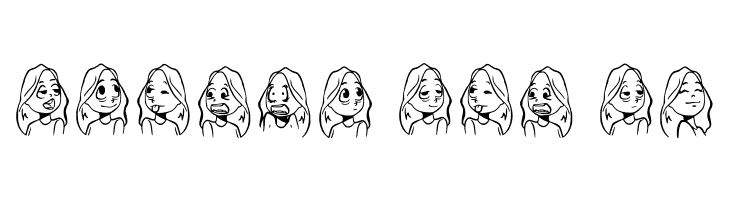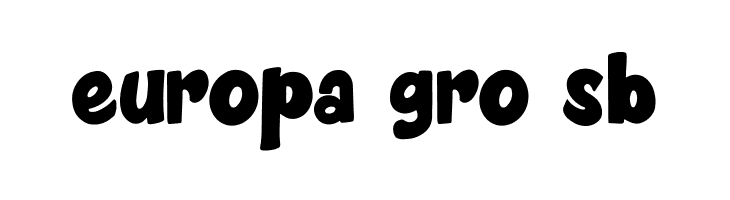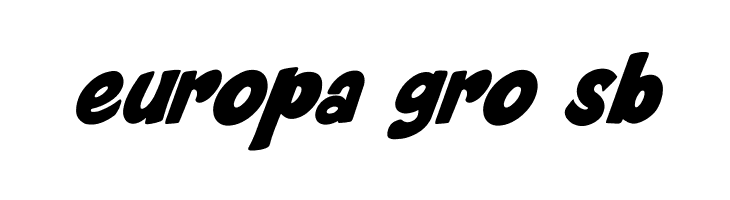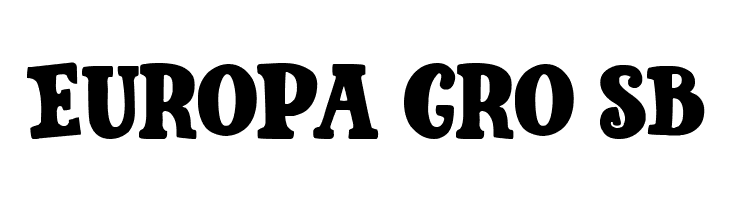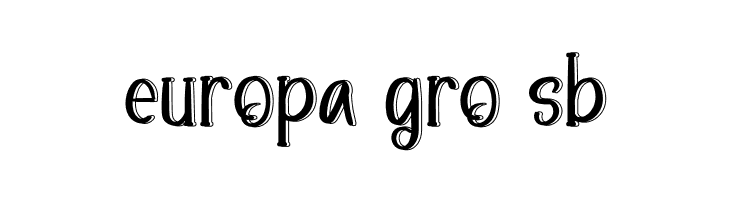
( Fonts by Omar Mogollón )
A playful, hand-drawn font with rounded, whimsical characters.
A bold, playful 3D font with a cartoonish style and shadow effect.
A bold, playful outline font with a cartoonish style.
A bold, playful, and slightly italicized font with a cartoonish style.
A bold, playful, and cartoonish font with thick, rounded letters.
A bold, playful font with thick outlines and a cartoonish style.
A bold, playful 3D font with rounded edges and a cartoonish style.
( Fonts by MatNowRock )
A playful, hand-drawn font with a bold, cartoonish style.
( Fonts by Jen Jones )
A playful, hand-drawn font with a whimsical and cartoonish style.
( Fonts by MrtheNoronha )
A bold, playful font with thick outlines and a cartoonish style.
( Fonts by Sharkshock )
A bold, playful font with irregular shapes and a whimsical, cartoonish style.
A bold, playful font with thick, rounded characters and a whimsical style.
( Fonts by Darrell Flood )
A bold, playful font with a hand-drawn marker style.
( Fonts by Geronimo )
A bold, playful font with rounded, outlined characters and a cartoonish style.
A bold, cartoonish font with a playful, three-dimensional style.
( Fonts by Darrell Flood )
A bold, playful font with chunky outlines and a whimsical, cartoonish style.
( Fonts by Darrell Flood )
A playful, bold outline font with a cartoonish and dynamic style.
( Fonts by Gustavo Lucero )
A playful, bold font with a cartoonish, bubbly style.
A bold, playful outline font with a cartoonish and whimsical style.
A bold, playful 3D font with thick outlines and a cartoonish style.
( Fonts by Darrell Flood )
A playful, bold, hand-drawn font with a cartoonish style.
A playful, bold, and cartoonish font with a hand-drawn, shadowed style.
( Fonts by Joseph Dawson )
A bold, playful font with thick, rounded outlines and a cartoonish style.
( Fonts by Darrell Flood )
A bold, italicized font with a playful, cartoonish style.
( Fonts by Darrell Flood )
A bold, cartoonish font with a playful and dynamic style.
( Fonts by imagex )
A playful, bold font with cartoonish, dynamic strokes and rounded edges.
( Fonts by Darrell Flood )
A bold, playful typeface with cartoonish, exaggerated letterforms.
( Fonts by Darrell Flood )
A bold, playful font with italicized, cartoonish characters.
( Fonts by Fachran Heit )
A playful, bubble-like font with thick outlines and a cartoonish style.
( Fonts by Fachran Heit )
A bold, playful font with dynamic, cartoonish characters.
( Fonts by Mr Letters )
A playful, hand-drawn font with bold outlines and a cartoonish style.
( Fonts by Darrell Flood )
A playful, bold, and italic font with a bubbly, cartoonish style.
( Fonts by Fachran Heit )
A bold, playful font with thick, uneven strokes and a whimsical, cartoonish style.
( Fonts by Xerographer Fonts )
A playful, bold, hand-drawn font with a cartoonish style.